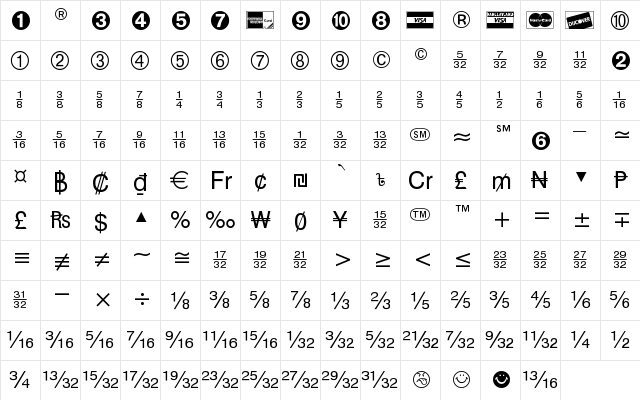
Currency Pi Normal
Design Context for Currency Pi Typeface
Currency Pi is a composed and adaptable typeface that performs quietly and consistently across a wide range of design contexts.